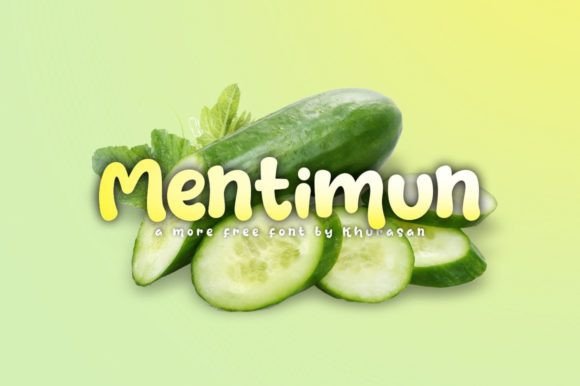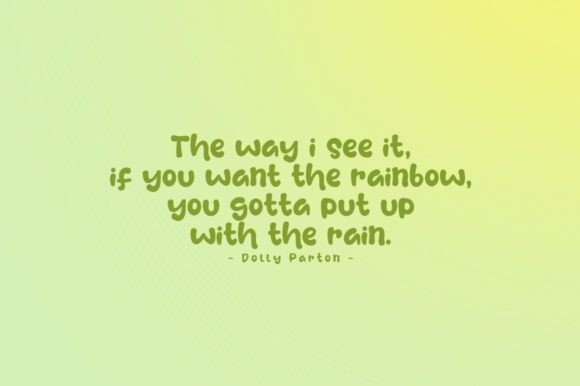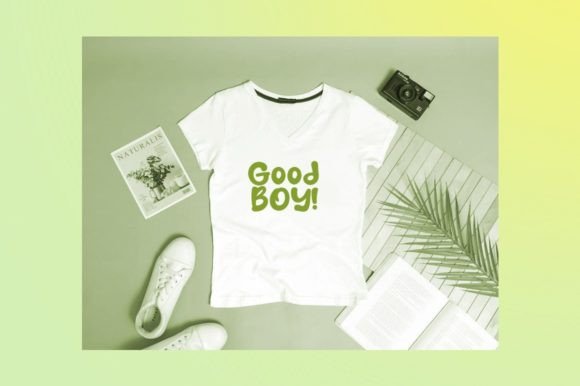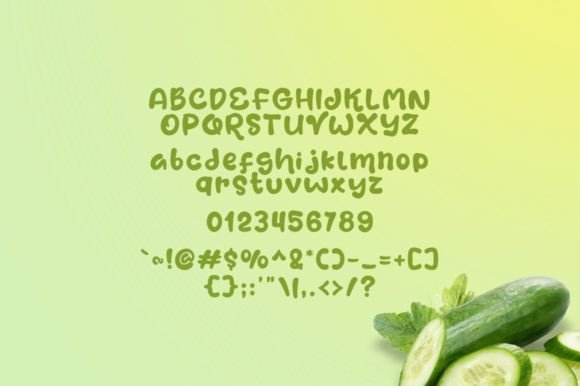
Mentimun Font
About Mentimun Font
“Mentimun” is a contemporary and stylish handwritten font that combines modernity with a touch of fancy elegance. Its versatile design makes it an ideal choice for a wide array of creative projects, including posters, logos, magazines, book covers, banners, and more. This font offers a fresh and trendy look, perfect for designers aiming to add a fashionable and sophisticated flair to their designs.
With its sleek and graceful letterforms, “Mentimun” exudes a sense of modernity and sophistication. Its handwritten style imparts a personalized and artistic touch to your text, making it suitable for various applications. Whether you’re designing promotional materials, social media graphics, or branding elements, “Mentimun” adds a contemporary and stylish vibe to your projects.
The font’s versatility allows it to seamlessly adapt to different design contexts. Its fancy yet readable appearance makes it a popular choice for both digital and print media. Whether used in large-scale posters or subtle logo designs, “Mentimun” brings a sense of chic elegance to any visual composition.
Embrace the contemporary allure of “Mentimun” and let your creativity shine. Whether you’re crafting a minimalist book cover or designing a vibrant banner, this font provides the perfect foundation for your creative endeavors. With its modern and fashionable aesthetic, “Mentimun” helps you create lovely and visually striking designs that capture the essence of sophistication. Don’t miss out on this amazing freebie, and elevate your projects with the elegance and charm of “Mentimun” today!